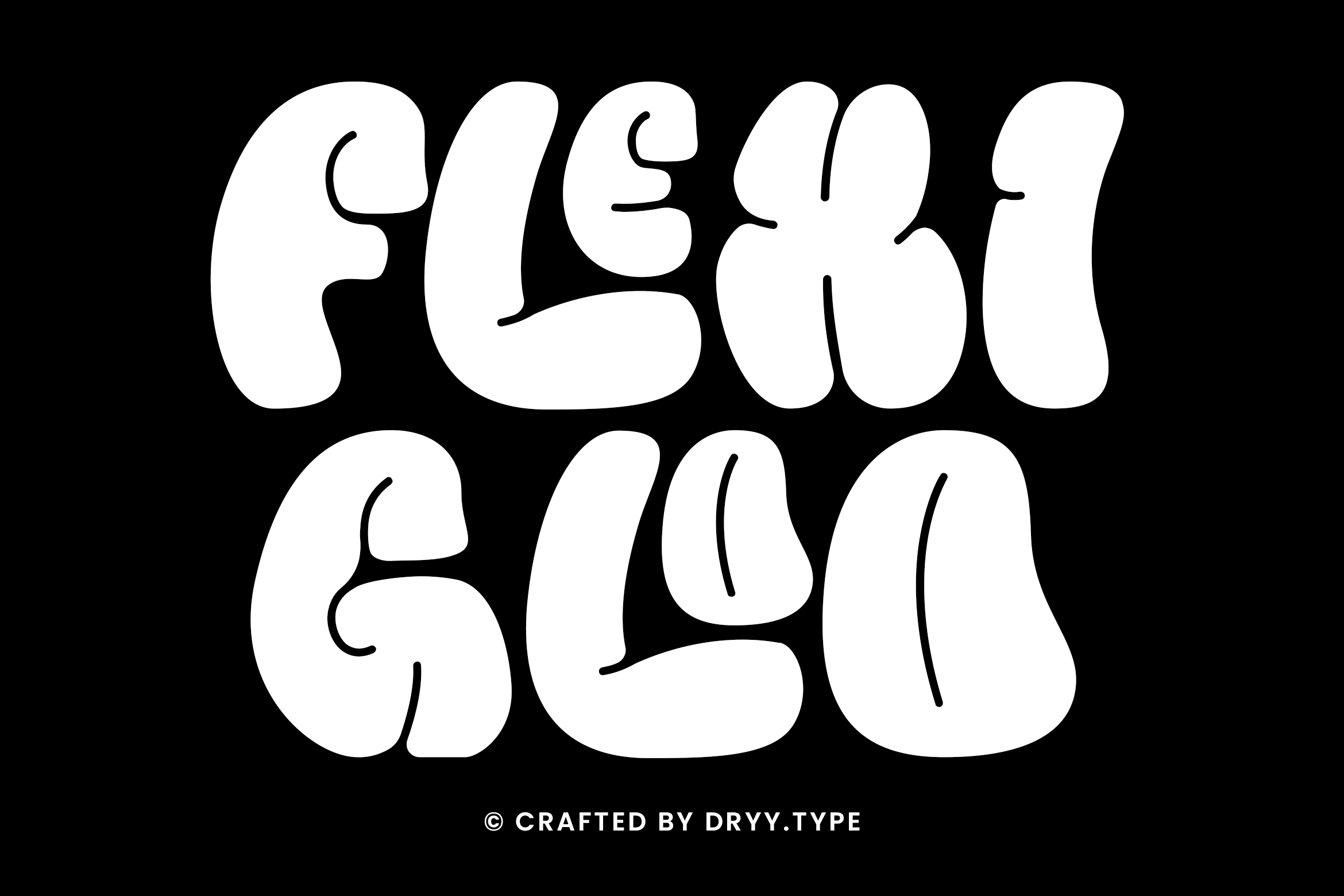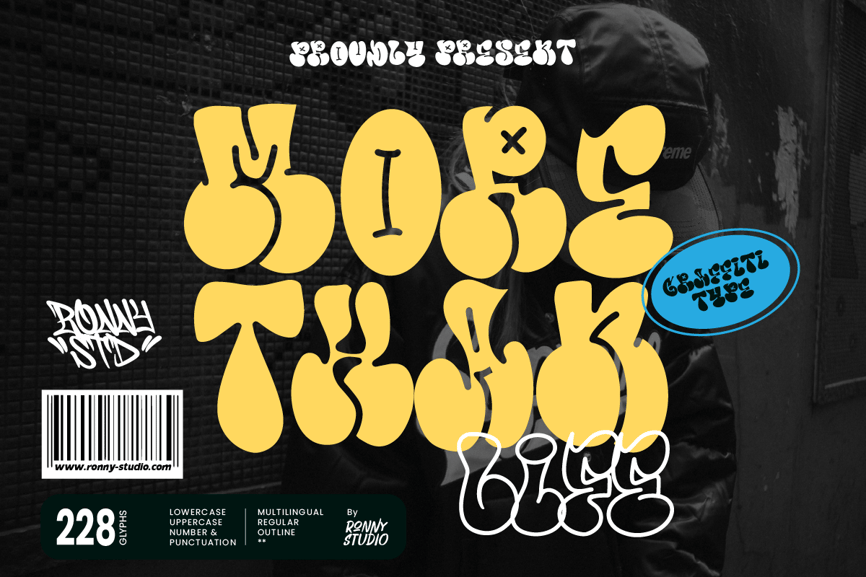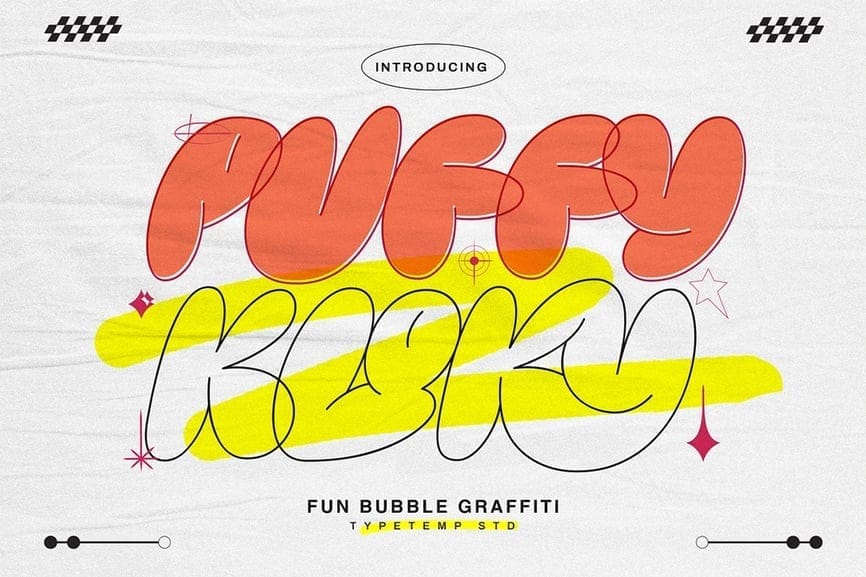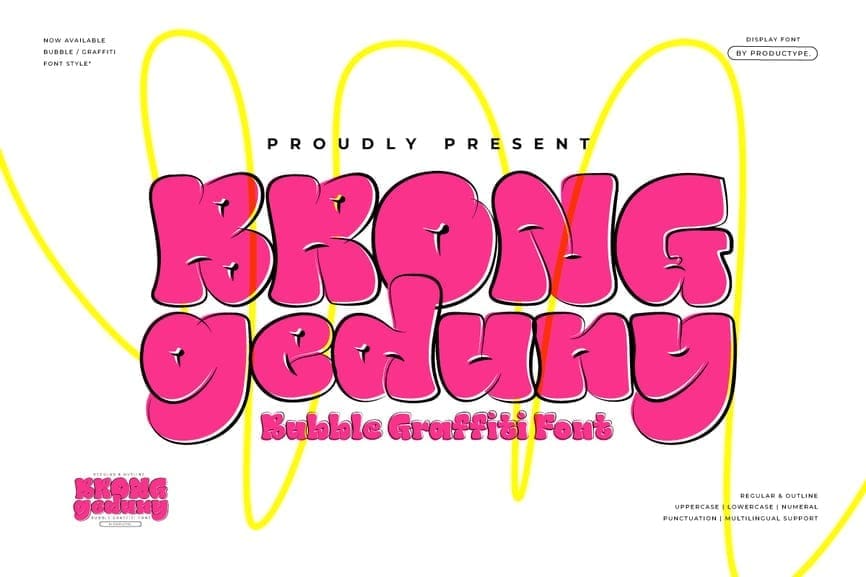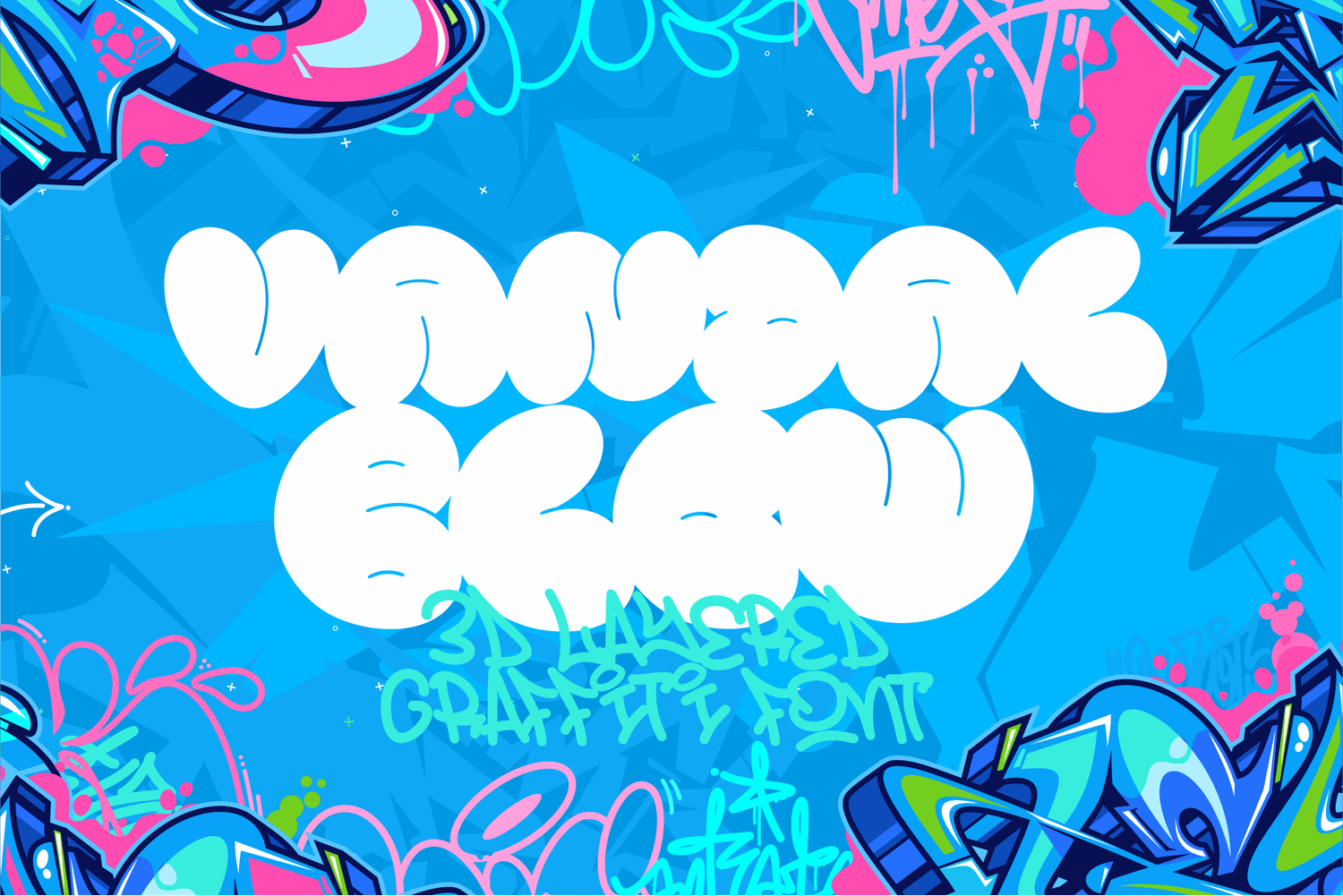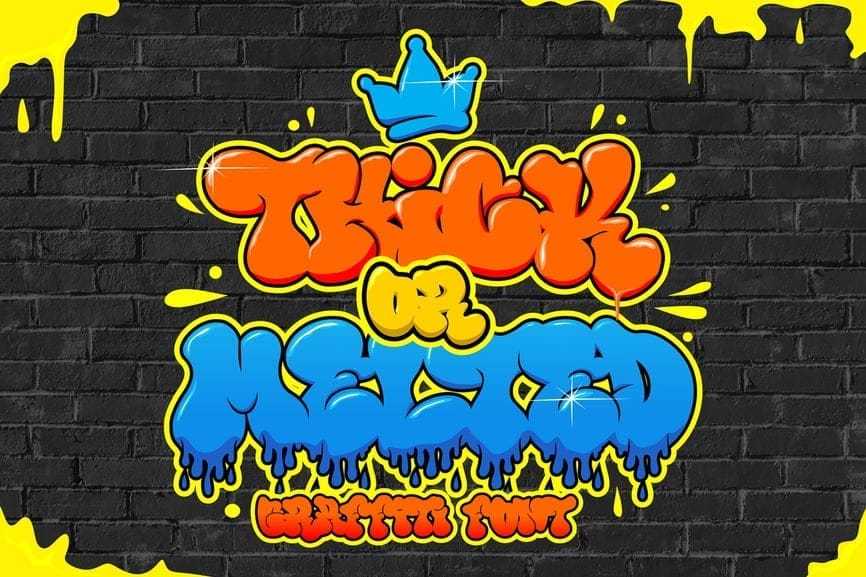
Have you ever scrolled through social media and stopped dead in your tracks because a post's design grabbed your attention? Eye-catching visuals are crucial in today's digital landscape, and typography plays a major role. If you're a graphic designer, blogger, social media manager, or small business owner looking to make a bold statement, then bubble graffiti fonts might be the secret weapon you've been searching for.
These playful and vibrant fonts, inspired by the iconic bubble lettering of graffiti art, pack a punch when it comes to grabbing attention. Whether you're creating logos, social media graphics, or marketing materials, bubble graffiti fonts can inject your designs with a unique personality and youthful energy. But before you dive headfirst into the world of 3D letters and bold outlines, let's explore what bubble graffiti fonts are all about and how they can elevate your creative projects.
This article will not only introduce you to the world of bubble graffiti fonts but also provide a curated list of the best options available, along with tips on using them effectively. By the end, you'll be equipped to harness the power of these eye-catching fonts and add a touch of urban flair to your designs!
Bubble graffiti fonts, also known as bubble letters or fat fonts, are a distinct typography style that injects a dose of urban flair into your designs. Imagine the iconic, rounded lettering that adorns subway cars and city walls, translated into a digital format for your creative projects. These fonts are characterized by several key elements:
Rounded Letters: Forget the sharp edges and clean lines of traditional fonts. Bubble graffiti fonts embrace a curvy aesthetic, with each letter taking on a plump, almost 3D appearance. This roundness evokes a sense of playfulness and informality, making them perfect for designs with a youthful or lighthearted vibe.
Bold Outlines; Adding to the visual impact, bubble graffiti fonts often have thick outlines surrounding the letters. This creates a sense of volume and emphasis, ensuring they stand out against the background, even on busy layouts.
Playful Energy: The overall feel of these fonts is undoubtedly fun and informal. The rounded shapes and bold outlines exude a youthful energy that can breathe life into your designs. Unlike some classic serif or script fonts, bubble graffiti fonts don't demand seriousness or formality. They're perfect for projects where you want to inject personality and a sense of lighthearted fun.
Beyond their distinct visual characteristics, bubble graffiti fonts have a rich history. Their roots lie in the street art scene, where bold lettering was used to mark territory, express artistic vision, and spread messages. Over time, these vibrant fonts transcended their graffiti origins and found a place in the mainstream design world. Today, they are a popular choice for a wide range of design projects, from creating eye-catching logos for streetwear brands and social media graphics for youth-oriented accounts to designing playful posters and flyers for events and promotions. Their versatility lies in their ability to instantly inject personality and a unique charm into your work, while still retaining a touch of urban edge.
Now that you're familiar with the world of bubble graffiti fonts and their captivating characteristics, let's delve into the exciting world of using them in your own creative projects! To get you started, we's compiled a list of some of the best and most popular bubble graffiti fonts available:
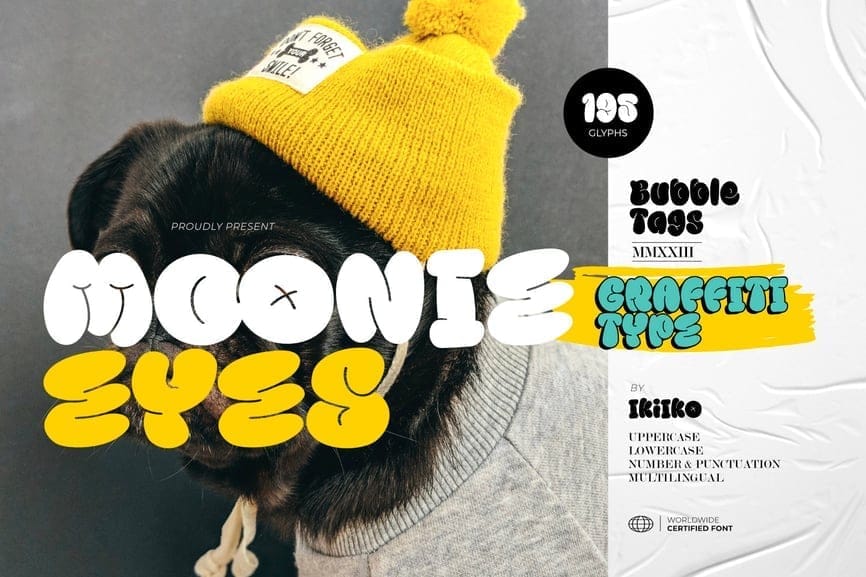
Description: Moonie Eyes is a hand-written graffiti font bursting with personality. Its bubble letters and spontaneous curves capture the energy of street art, making it a perfect choice for designs that demand attention.
Ideal Uses: Streetwear branding, posters, magazine layouts, fashion design, quotes, social media graphics
Description: Inspired by graffiti art, Bubble Boom is a playful and vibrant font with a fun theme. Its chunky, bubble letters and soft edges make it a great choice for children's book illustrations, cartoon designs, and eye-catching headlines.
Ideal Uses: Children's book illustrations, cartoon designs, headlines
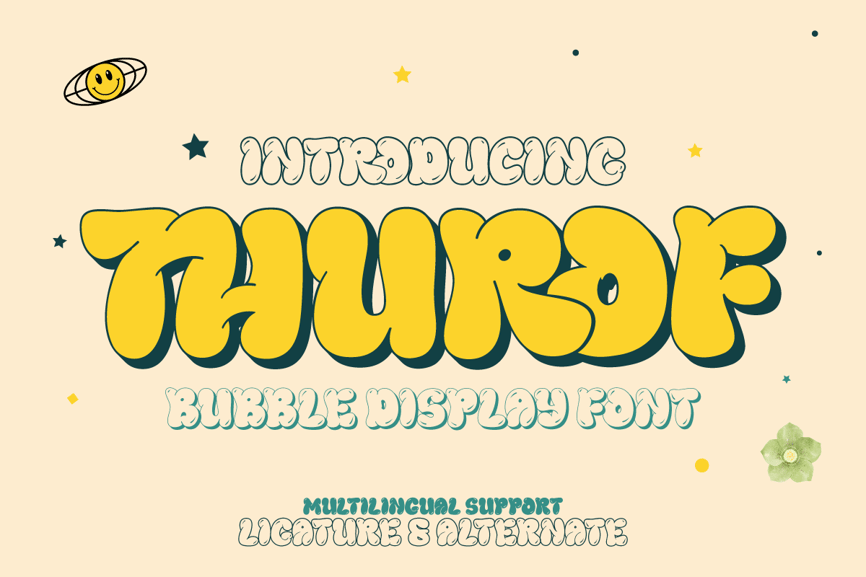
Description: Thurof is a fun and playful bubble font that will add a whimsical touch to your projects. It comes in three styles (regular, outline, and shadow) to give you versatility in creating a look that perfectly matches your design needs. This font also boasts a wide range of variant ligatures and characters, allowing you to get creative and design unique compositions.
Ideal Uses: Logos, children's book illustrations, posters, social media graphics, branding projects with a playful touch
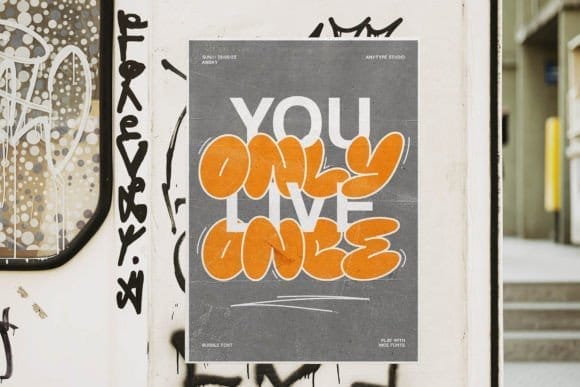
Description: Knerd Bubble Font is a fun and playful bubble font with a graffiti touch and a cutoff letterform detail. It offers a casual and retro vibe, perfect for use in large sizes on posters, flyers, or branding materials. While imperfect, it retains excellent legibility.
Ideal Uses: Posters, flyers, branding materials, headlines, social media graphics